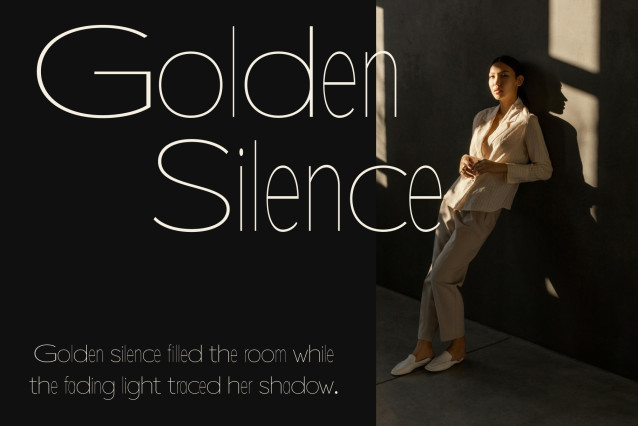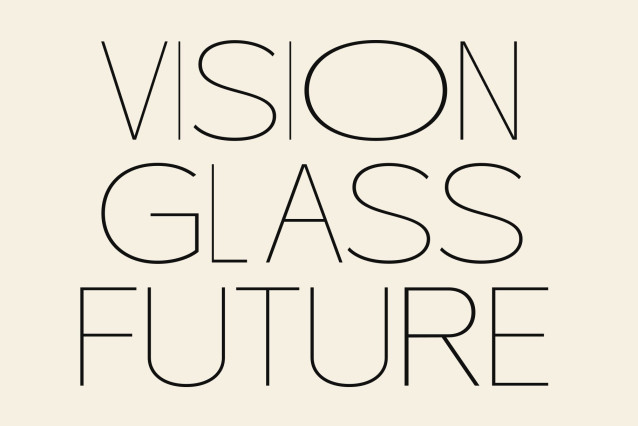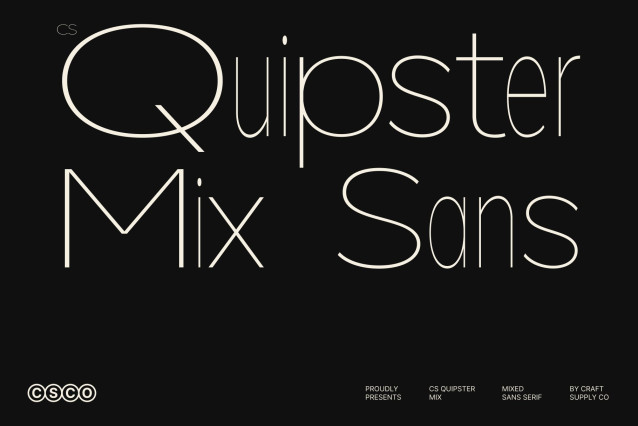
CS Quipster Mix Font
CS Quipster Mix – Thin Geometric Sans Serif: Minimal Elegance with Contemporary Precision
Thin Geometric Sans Serif with Mixed Style Character
This is a thin geometric sans serif font designed to express elegance, clarity, and modern sophistication. Built with refined proportions and minimalist geometry, this typeface introduces a distinctive mixed-style concept that adds subtle rhythm and visual contrast to every composition. It transforms clean typography into a stylish design element that feels contemporary, light, and highly professional.